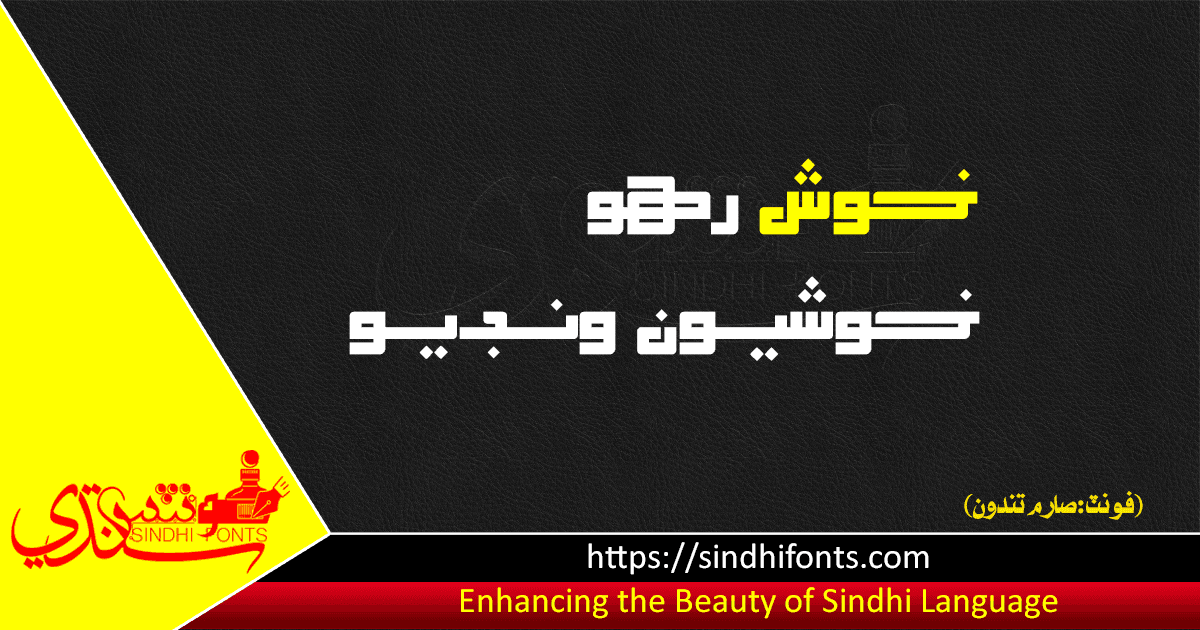
Stylish Sindhi Font Sarem Tandoon
Stylish Sindhi font Sarem Tandoon for your writings particularly for the Headings. It confirms the latest Unicode standards also. Sarem Tandoon is free of charge to download and install on your computer.